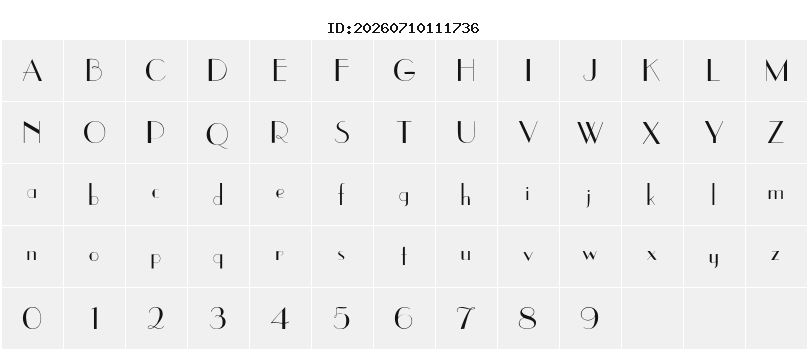
EastSide Preview
About EastSide.ttf
EastSide.ttf is a modern, elegant sans-serif font designed for ultimate readability and visual harmony. Perfect for branding, headlines, web design, and print materials.